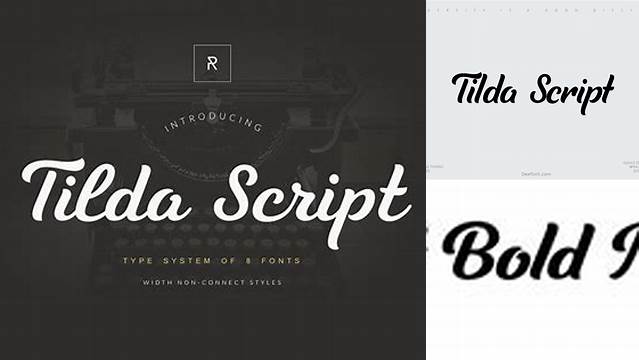
Hey guys! Are you on the hunt for a fresh, stylish font to spice up your designs? Look no further! We're diving deep into the world of the Tilda Script Bold Non-Connect Font, and trust me, it's a game-changer. This font has a unique, flowing style that can add a touch of elegance and personality to any project. Whether you're working on invitations, logos, or website designs, this font is a fantastic option. So, let's get started and explore everything you need to know about downloading and using the Tilda Script Bold Non-Connect Font for free!
What is Tilda Script Bold Non-Connect Font?
The Tilda Script Bold Non-Connect Font is a beautifully crafted typeface that exudes a sense of sophistication and charm. Unlike connected scripts where letters flow seamlessly into one another, the non-connect style of this font gives each character its own space, making it highly legible while still maintaining a stylish appearance. This font is perfect for projects where you want to make a statement without sacrificing readability. The bold weight adds emphasis and presence, making it ideal for headlines, titles, and branding materials. This font’s elegant curves and distinct letterforms make it a versatile choice for various design applications. Imagine using it for wedding invitations, branding for a boutique, or even adding a touch of class to your blog headers. It's a font that truly stands out, and the non-connect style ensures it remains clear and easy to read, even at smaller sizes. It’s the perfect blend of style and functionality. The Tilda Script Bold Non-Connect Font is designed to bring a touch of sophistication and modernity to your projects, making it a must-have in your font collection.
1. Understanding Tilda Script Bold Font
So, you’ve heard about the Tilda Script Bold Font, but what exactly makes it so special? Well, for starters, it's a script font, which means it’s designed to mimic the fluidity of handwriting. But here's the cool part: the 'bold' in its name signifies that the strokes are thicker, giving it a strong, confident appearance. This makes it super versatile for a wide range of projects. Think about using it for catchy headlines, standout logos, or even to add a personal touch to your social media graphics. The bold weight ensures your message pops, grabbing attention without being overwhelming. But that’s not all! The Tilda Script Bold Font isn’t just about being visually appealing; it's also about being readable. Some script fonts can be a bit tricky to decipher, especially in smaller sizes. However, the designers of Tilda Script have struck a perfect balance, creating a font that’s both stylish and clear. This means you can use it in various sizes and still be confident that your audience will be able to read it effortlessly. Whether you’re designing a website, creating marketing materials, or working on a personal project, understanding the nuances of the Tilda Script Bold Font will help you make the most of its unique characteristics. It’s a font that brings personality and professionalism together, making it a valuable asset in any designer’s toolkit.
2. The Appeal of Non-Connect Fonts
Okay, let's talk about why non-connect fonts are seriously trending right now. You know how traditional script fonts often have letters that flow seamlessly into each other? Non-connect fonts, on the other hand, give each letter its own space. This might seem like a small detail, but it makes a world of difference, especially when it comes to readability. Think about it: in a world where we’re constantly bombarded with information, clarity is key. Non-connect fonts offer that clarity, making them super appealing for projects where you want your message to be easily understood. But it's not just about readability! These fonts also have a modern, chic vibe. They strike a balance between the elegance of script fonts and the simplicity of sans-serif fonts. This makes them incredibly versatile, perfect for everything from branding and logos to invitations and website design. Imagine using a non-connect script for your business cards – it’s a surefire way to make a memorable impression. Plus, non-connect fonts often feel more approachable and friendly. The slight separation between letters gives them a relaxed, informal feel, which can be a huge asset if you’re trying to connect with your audience on a personal level. So, if you’re looking for a font that’s both stylish and practical, non-connect fonts are definitely worth exploring. They offer a fresh, contemporary twist on traditional script styles, making them a go-to choice for designers and creatives everywhere.
3. Advantages of Using Bold Fonts
Let's dive into why bold fonts are like the superheroes of the typography world. First and foremost, they command attention. When you need your message to stand out, a bold font is your best friend. Think about it: headlines, titles, and calls to action all benefit from that extra visual punch. A bold typeface instantly draws the eye, making it perfect for grabbing your audience's attention in a crowded space. But it's not just about making a statement; bold fonts also enhance readability. Especially in digital formats, where screens can sometimes make fine lines appear blurry, a bold font ensures that your text remains clear and legible. This is crucial for maintaining engagement and ensuring your message is effectively communicated. Moreover, bold fonts can help create visual hierarchy in your designs. By using bold text for headings and subheadings, you can guide the reader's eye through the content, making it easier to digest and understand. This is particularly important for longer pieces of text, such as articles or blog posts. And let's not forget the impact bold fonts can have on branding. A bold typeface can convey confidence, strength, and authority, making it an excellent choice for businesses looking to establish a strong brand identity. Whether you’re designing a logo, creating marketing materials, or crafting a website, incorporating bold fonts can elevate your designs and leave a lasting impression. So, if you want your message to be heard loud and clear, don't underestimate the power of a bold font!